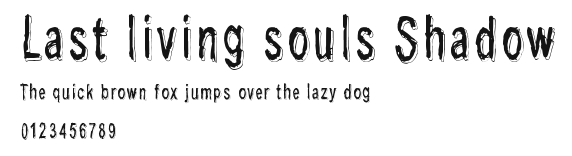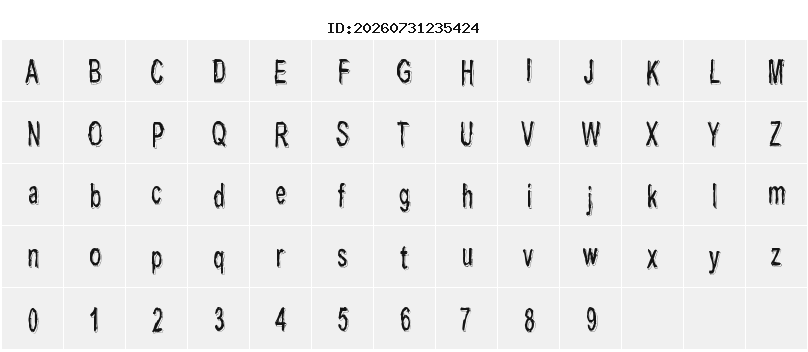
• Font Name: Last living souls Shadow
About Last living souls Shadow.ttf
Last living souls Shadow.ttf is a modern, elegant sans-serif font designed for ultimate readability and visual harmony. Perfect for branding, headlines, web design, and print materials.